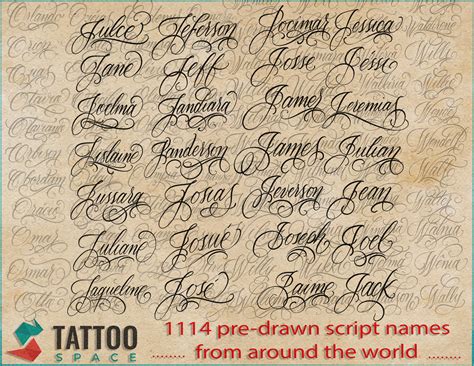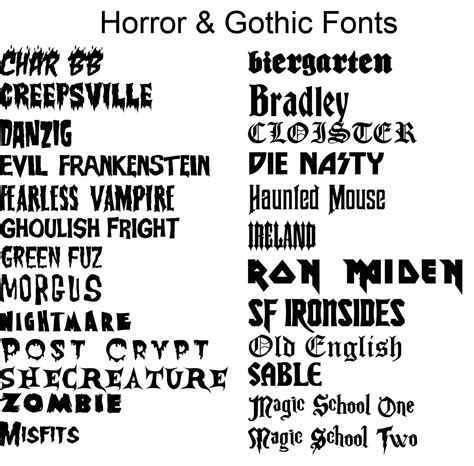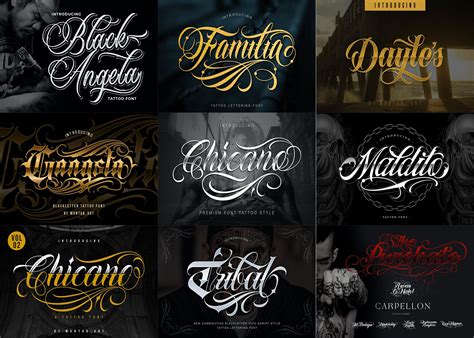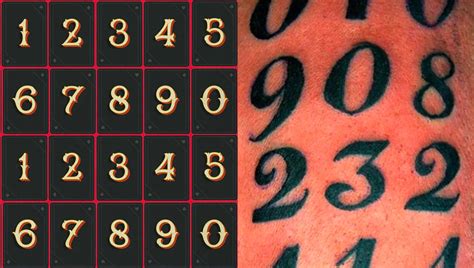
Opt the perfective Font For Name Tattoo is a deeply personal conclusion that equilibrise artistic expression with permanent aesthetic appeal. Since a tattoo is a lifelong dedication, choose a handwriting that captures the essence of the someone being honored is crucial. Whether you are seem for frail cursive, bold gothic inscription, or minimalist modern composition, the style you choose will dictate how the name sit on your skin and how it ages over time. This guide explores the diverse world of tattoo typography, aid you navigate the endless options available to find a pattern that feels both timeless and unique.
The Impact of Typography on Body Art
Typography is more than just clear textbook; it is a visual language that transmit emotion and personality. When it comes to lasting ink, the right font selection function to amplify the meaning behind the name. A name symbolise a loved one ofttimes benefits from soft, feed lines, while a name represent force or personal growth might lean toward incisive, more structural case.
Factors to Consider Before Choosing a Font
Before you send to a stencil, there are several technical aspects of tattooing that you must account for to ensure your design remains legible for days to come:
- Skin Snap: Area like the wrist or ankle relocation often. Intricate, extremely detailed typeface may blur slightly over time in these high-movement zone.
- Size and Scale: A baptistry that looks elegant on a large, all-inclusive area like the dorsum may go illegible if recoil down for a finger or rib tattoo.
- Longevity (Blowout): Fine line can sometimes propagate or "blow out" as the skin ages. Always refer with your artist about the minimum recommended sizing for your chosen face.
Popular Font Styles for Name Tattoos
The salmagundi of fonts available is vast, but most professional tattoo artist categorize them into a few distinct families. Understanding these categories will help you narrow down your search for the apotheosis Font For Name Tattoo.
| Font Style | Best Suit For | Vibration |
| Script/Calligraphy | Forearms, rib, collarbone | Elegant, fluid, timeless |
| Blackletter/Gothic | Back pieces, knuckles | Bold, traditional, edgy |
| Typewriter/Monospace | Minimalist, linear | Raw, journalistic, honest |
| Handwritten/Personal | Memorial pieces | Intimate, authentic, unequalled |
The Art of Custom Lettering
While standard digital case provide a great starting point, impost lettering is the gilded touchstone in the tattoo industry. A skilled tattoo artist can draw a gens to fit the natural stream of your musculus construction. This ensures that the inscription does not look like a "thorn" placed on the pelt, but rather an organic component of your body's anatomy.
💡 Billet: Always convey a printed example or a digital reference of the mode you like, but rest open to your artist's adjustment to ensure the stencil suit your specific soma perfectly.
The journeying toward finding the right aesthetic for your body art should be thoughtful and patient. By judge how different styles interpret to your specific pelt type and take placement, you insure that the result is something you will be proud to exhibit indefinitely. Whether you opt for a striking gothic script or a delicate, personal signature, prioritise pellucidity and seniority in your design. Erstwhile you have settled on a fashion that resonates with your personal storey, work closely with a professional artist to rarify the spacing and scale, make a piece that honour the gens perfectly. Gift clip in these details betimes on warranty that your chosen gens tattoo remains a beautiful and open expression of what matters most to you.